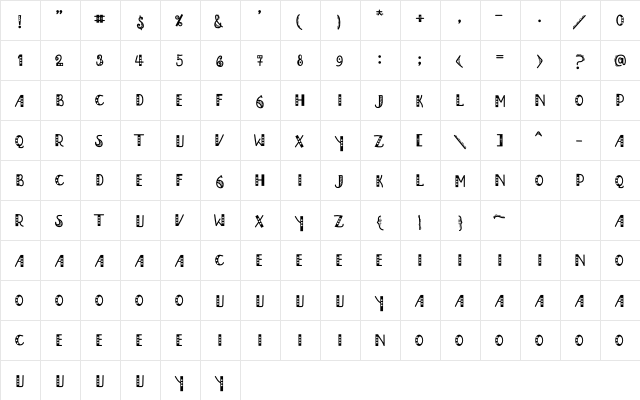
Christmas Honeymoon Regular
| Designer | Nur Edi Prayitno |
Design Context for Christmas Honeymoon Typeface
Christmas Honeymoon is a composed and adaptable typeface that performs quietly and consistently across a wide range of design contexts.